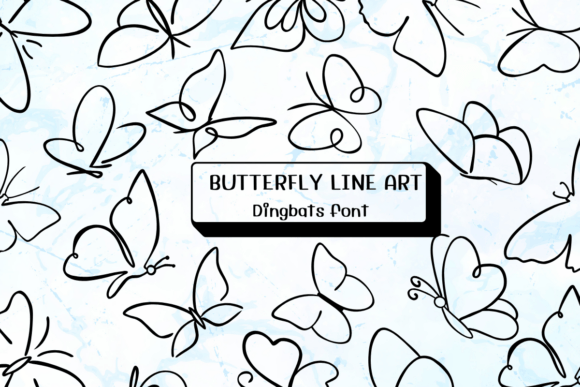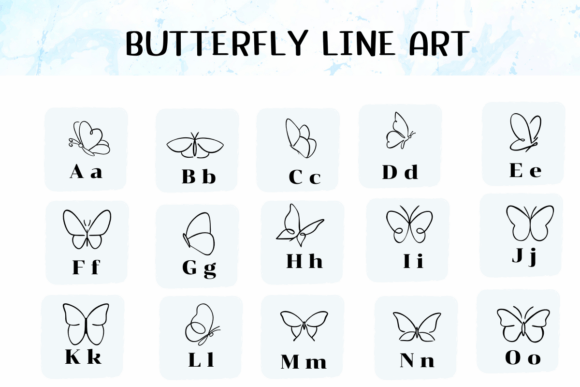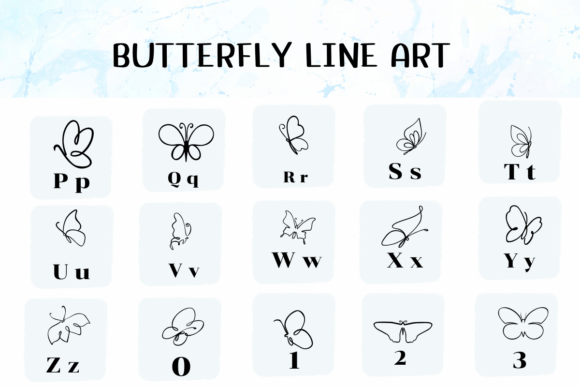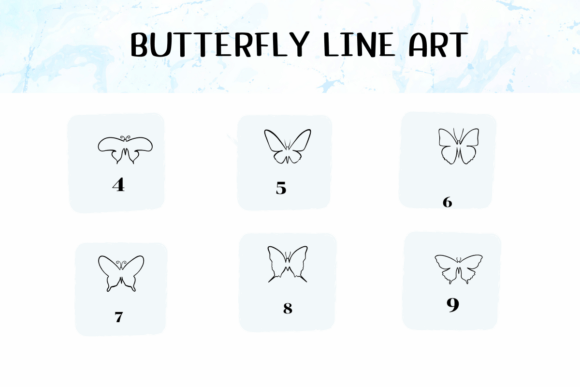
Butterfly Line Art Font
About the Butterfly Line Art Font
Unleash your creativity with Butterfly Line Art Font, a versatile font perfect for a wide range of applications. Butterfly Line Art is a dingbat font filled with adorable butterfly designs. Each character showcases a unique and simple butterfly outline, perfect for decorating invitations, crafts, and creative projects. Easy to use and charming, it’s great for adding a whimsical touch!
This font’s whimsical nature makes it ideal for children’s books, greeting cards, and projects emphasizing a lighthearted, playful aesthetic. It’s also well-suited for branding associated with nature, spring, or femininity. However, Butterfly Line Art is not suitable for large bodies of text or situations requiring high readability. Avoid using it for website copy, lengthy documents, or UI elements.
Pairing Butterfly Line Art with a clean sans-serif like Open Sans for body text creates a balanced contrast, allowing the playful dingbats to stand out without overwhelming the design. For a more sophisticated look, consider pairing it with a delicate serif font such as Lora.
The overall personality of Butterfly Line Art is undeniably cheerful and delicate, making it a perfect choice for projects aiming for a sweet and charming visual effect.